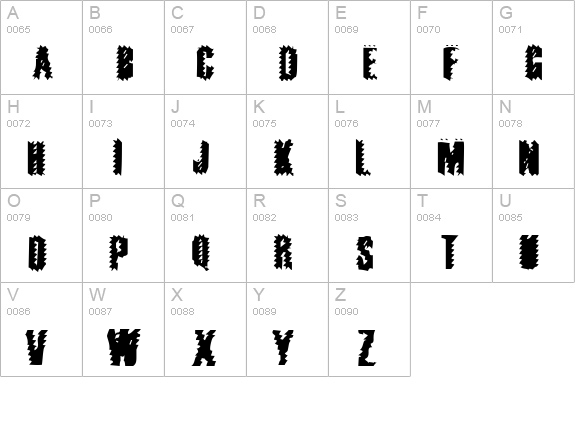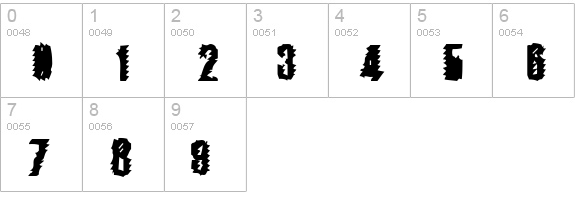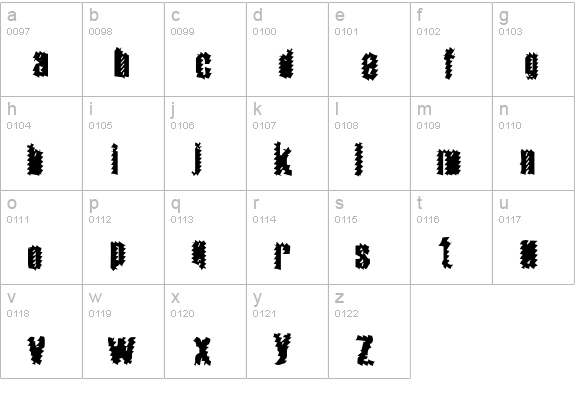
Apocalypse Font Details
Introducing Apocalypse font, a bold and edgy typeface designed to make a statement. With its rugged and apocalyptic aesthetic, this font is perfect for projects that require a touch of intensity and drama. The Apocalypse font features sharp edges and a distinctive style that is sure to captivate your audience. Best of all, Apocalypse font is available for free download at FontsMarket.com. This means you can easily add this unique font to your design arsenal without breaking the bank. Whether you're working on a poster, logo, or branding project, Apocalypse font is a versatile choice that will help your designs stand out from the crowd. Don't miss out on the opportunity to elevate your designs with the striking and powerful Apocalypse font. Download it for free today at FontsMarket.com and unleash your creativity like never before!